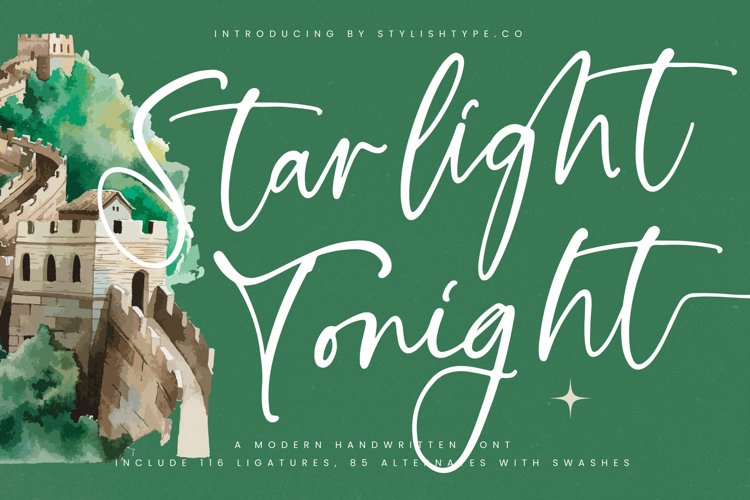
Starlight Tonight - Modern Handwritten Font
Starlight Tonight is a modern handwritten font that blends casual charm with artistic elegance, making it an essential choice for projects that demand both personality and versatility. Designed with 116 ligatures and 85 alternates with swashes, this typeface offers an incredible amount of flexibility to craft truly unique lettering compositions. Each stroke carries the natural rhythm of authentic handwriting, giving your designs a warm, approachable, yet refined look.
Created for designers who want their projects to feel both modern and timeless, Starlight Tonight adapts beautifully across different creative needs. Whether you are crafting branding projects, wedding invitations, editorial layouts, or product packaging, this handwritten font provides the perfect balance between casual flow and professional polish. It’s the kind of typeface that feels at home on social media graphics, event posters, and advertising campaigns, while also maintaining a strong presence in print media like magazines and stationery.
Starlight Tonight is not just a handwritten script — it’s a storytelling tool. It adds a human touch to digital design, infuses warmth into brand identities, and creates memorable impressions that resonate with viewers. Perfect for modern creators, this font is designed to stand out in a crowded creative landscape, giving your work the distinctive edge it deserves.
If you’re looking for a font that combines style, functionality, and expressiveness, Starlight Tonight is the ultimate choice. It elevates your design projects with an effortless sense of authenticity while ensuring they remain stylish, professional, and unique.